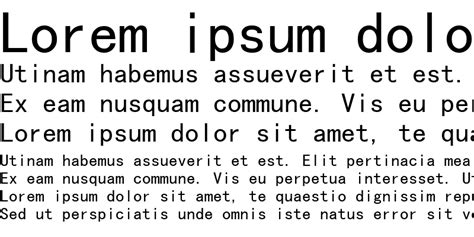
Font Ms Gothic
Font Ms Gothic - Ms pgothic japanese font features plain strokes similar to sans serif designs with proportional.
Ms pgothic japanese font features plain strokes similar to sans serif designs with proportional.